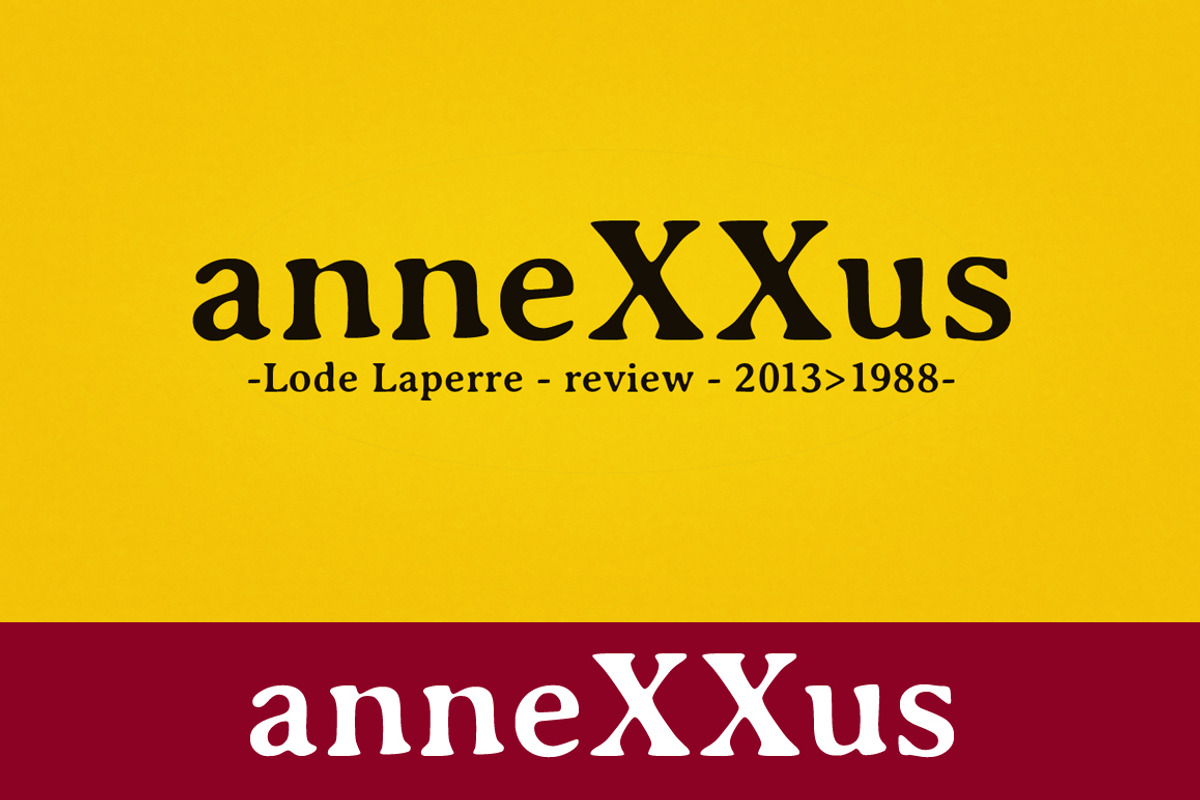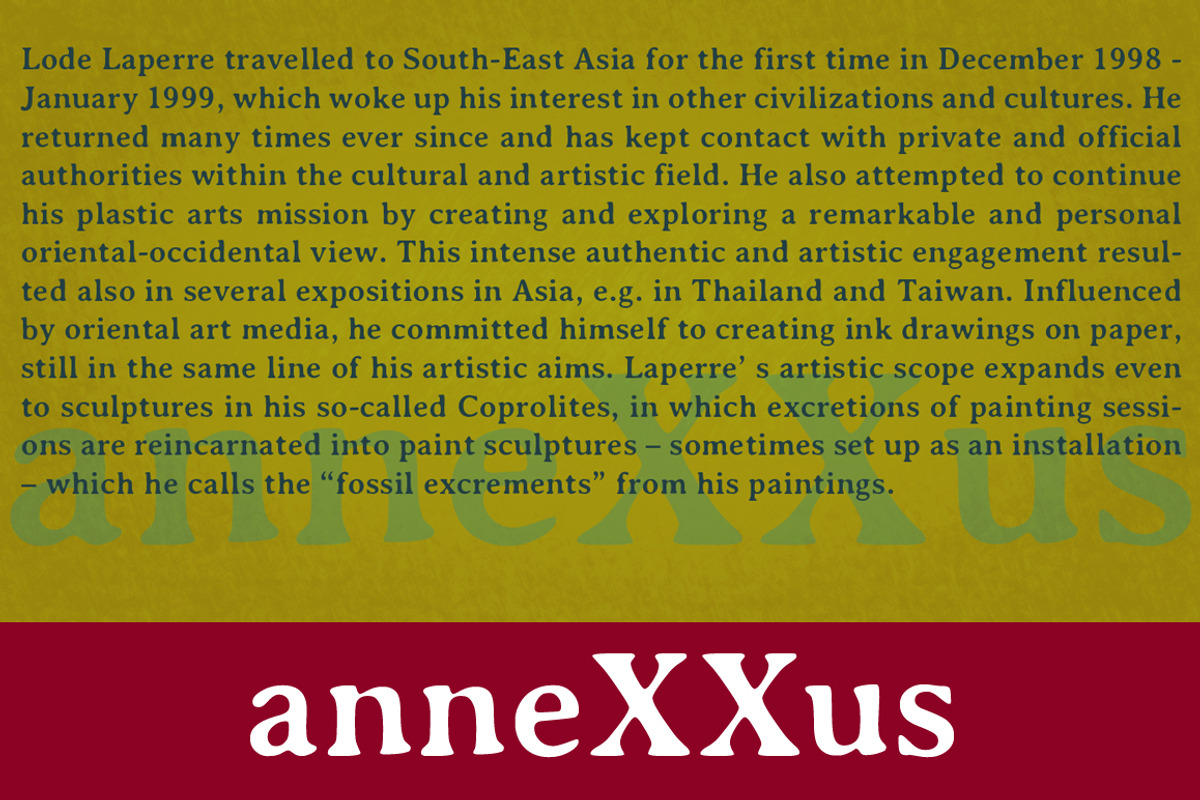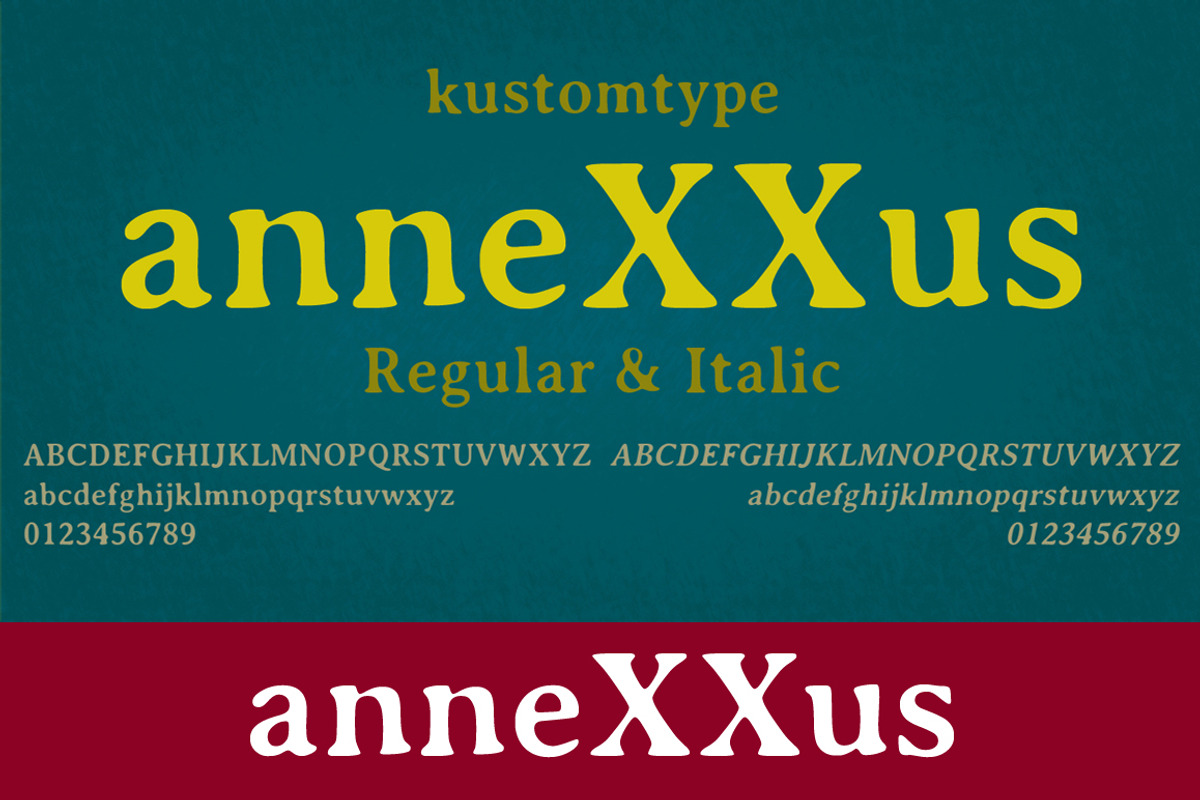
anneXXus font
Kustomtype’s ‘Annexxus’ font is a serrif font. It contains all upper & lower cases. The ‘Annexxus’ font is coordinated into letterforms, metrics, and weights to work better together. Why still looking for old school types for your posters, text, design, artwork, headtext, editoral design, magazines, etc.? Dress up your graphic work with 'Annexxus! A good font does not have to be perfect to be wonderful!